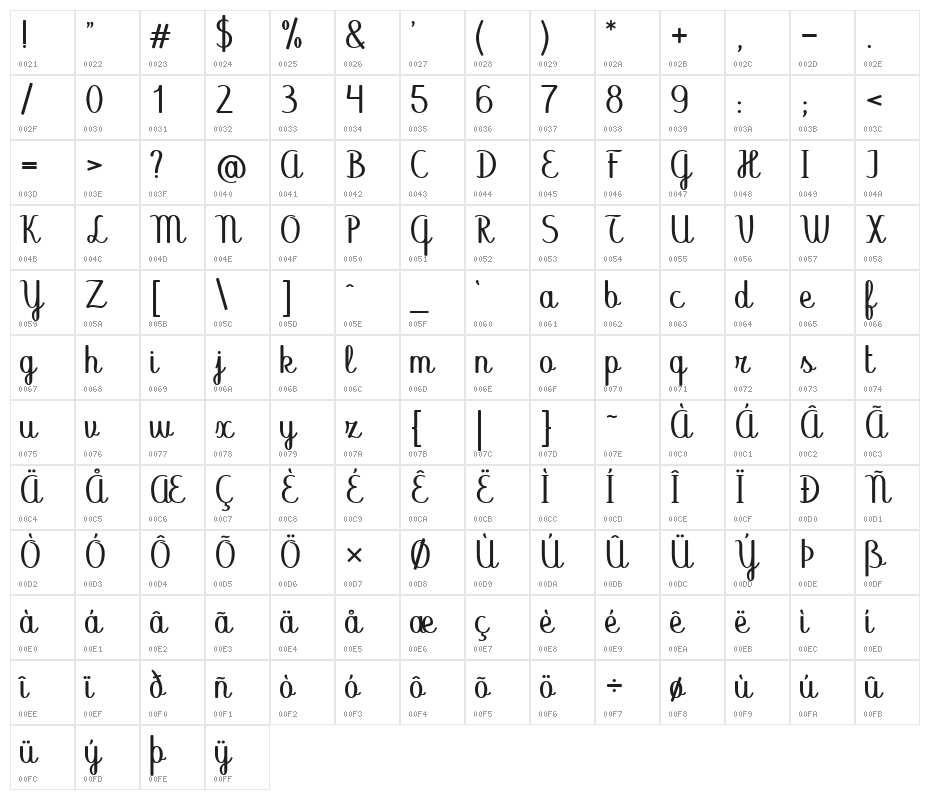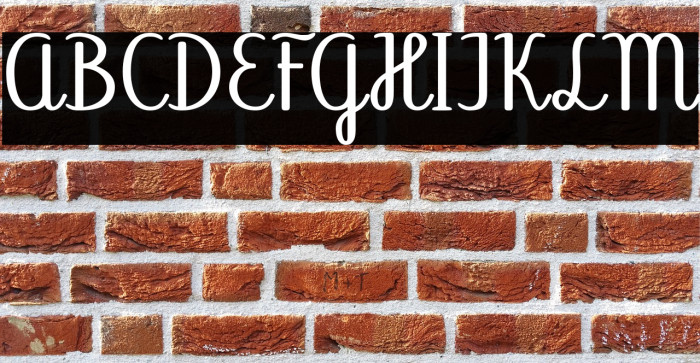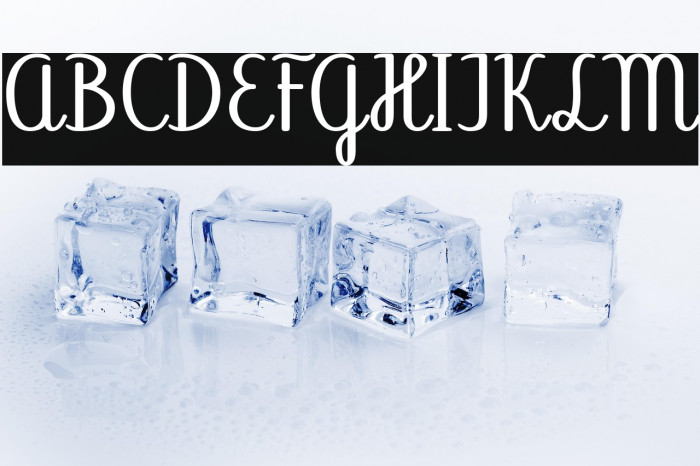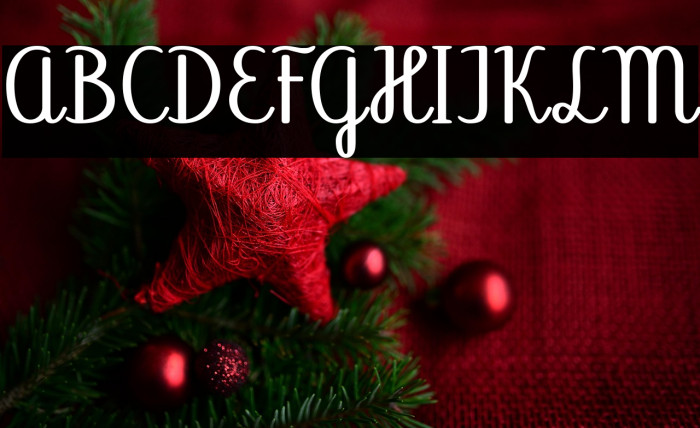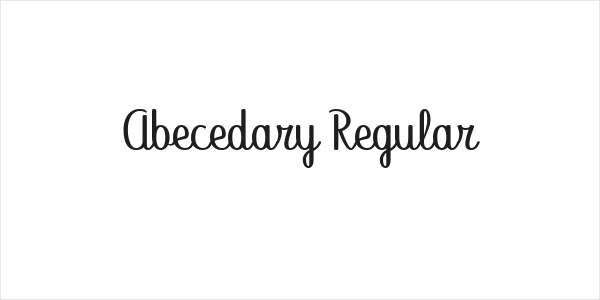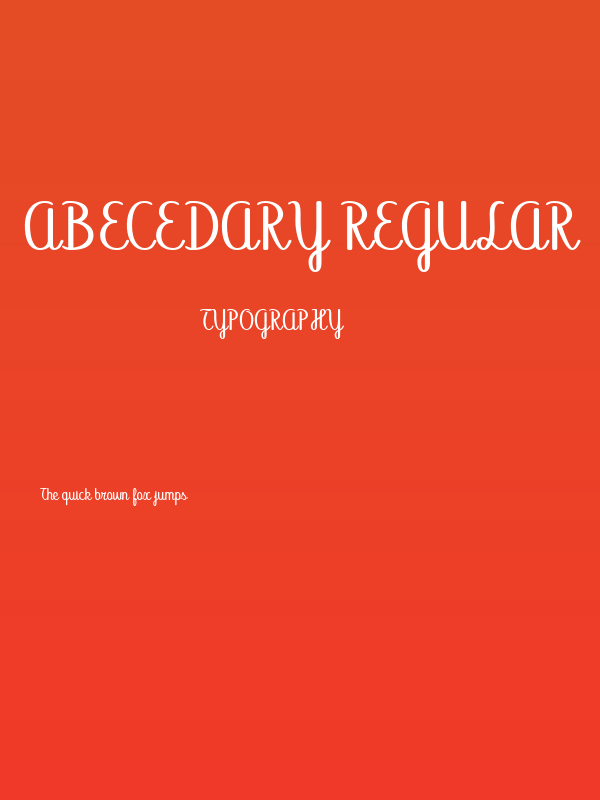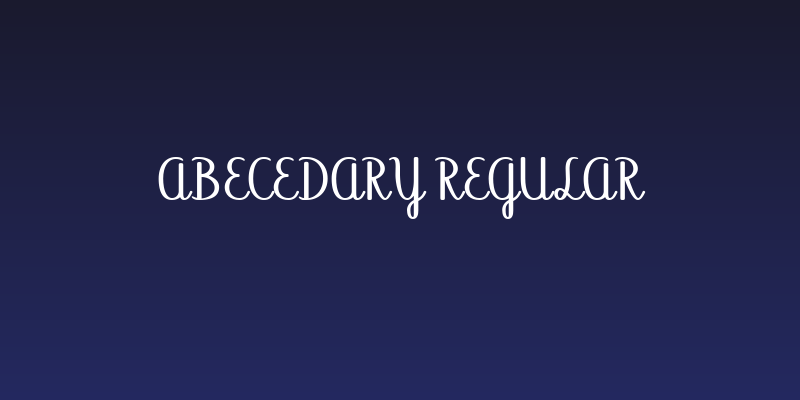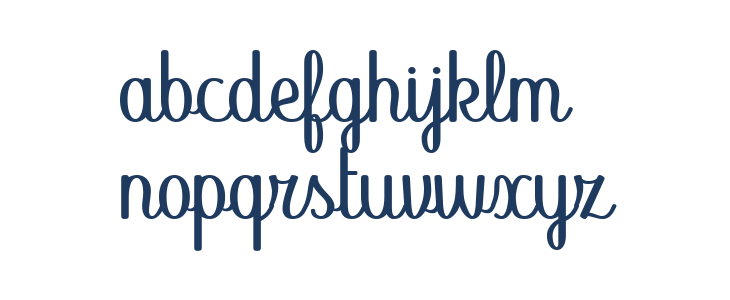
Abecedary Regular Font
Abecedary Regular Description
This font features a playful and elegant script style with a smooth flow between characters. The uppercase letters are tall and slightly narrow, with a consistent stroke width that gives a uniform appearance. The lowercase letters are more rounded and connected, enhancing the script-like quality. Numbers are clear and legible, maintaining the same stroke width as the letters. Special characters are designed to match the overall style, ensuring a cohesive look across all text. The font's design is both modern and timeless, making it suitable for a variety of applications.